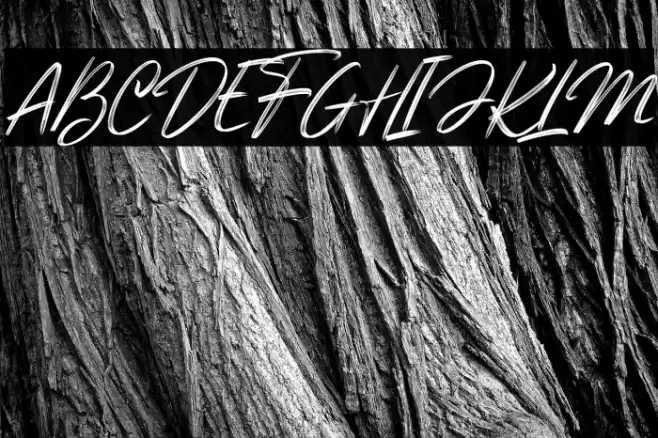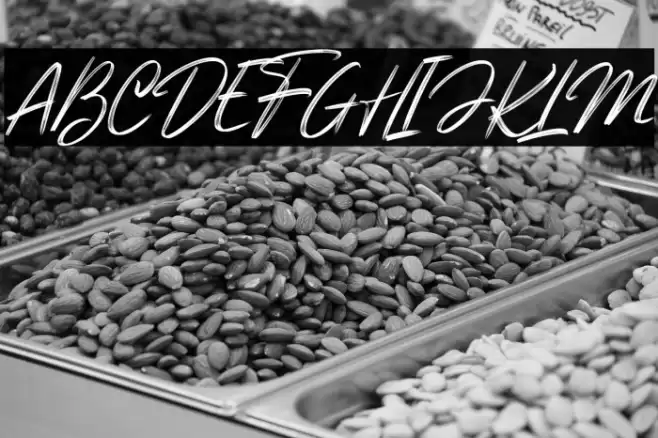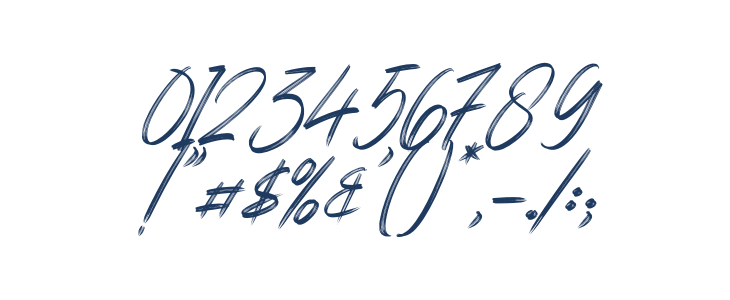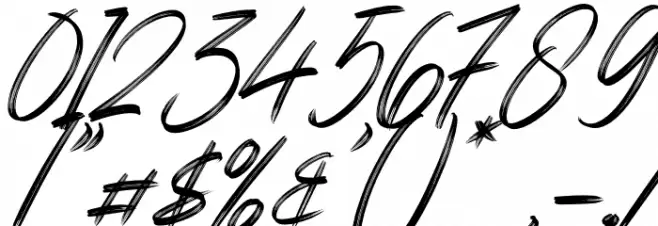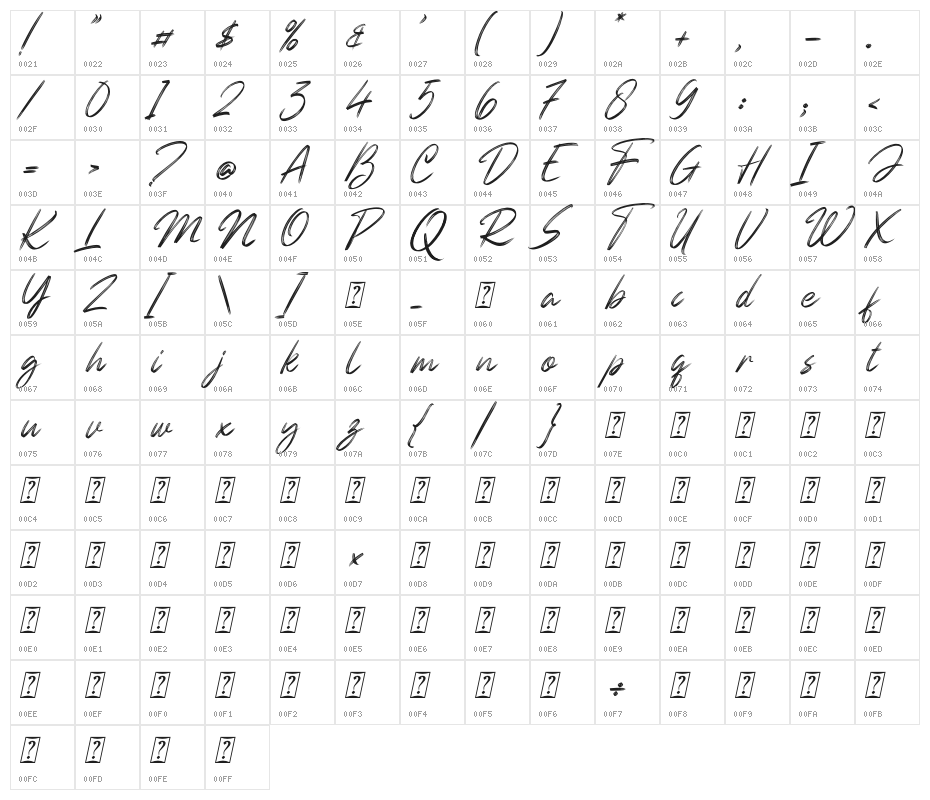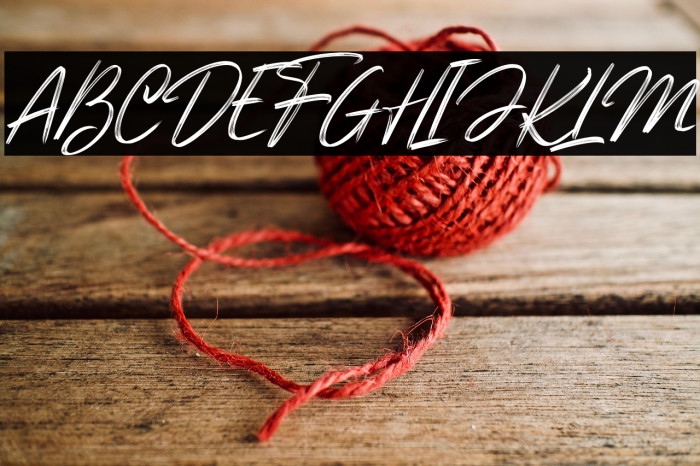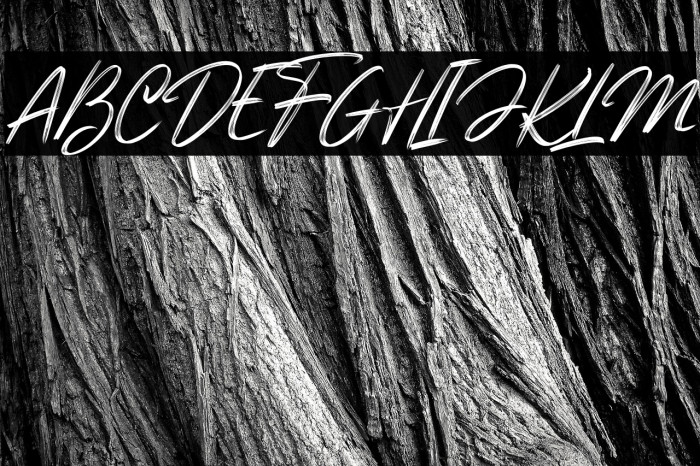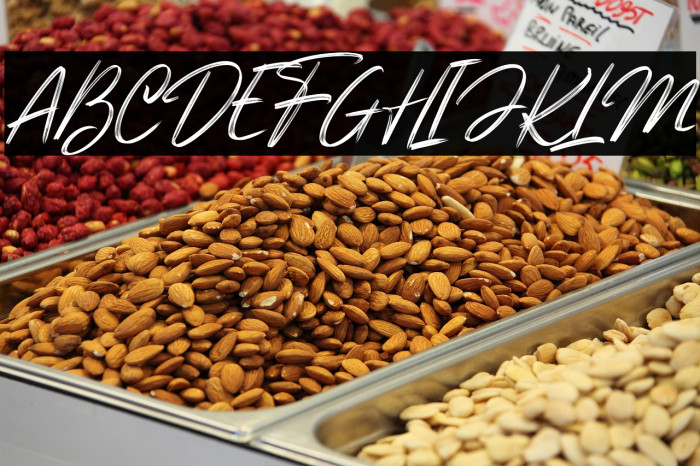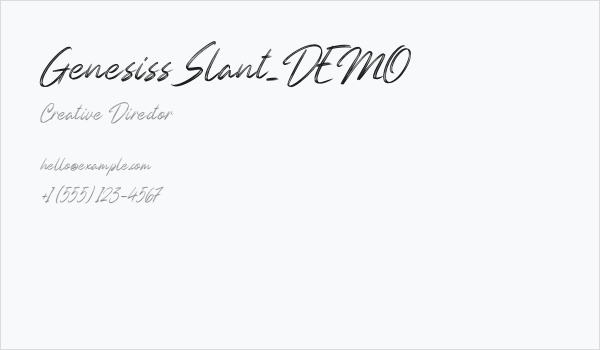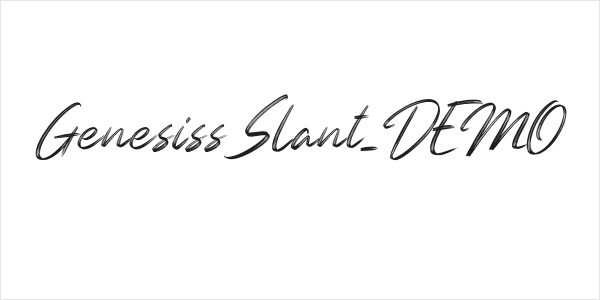
Genesiss Slant_DEMO Font
Genesiss Slant_DEMO Description
This font features a dynamic and expressive style with a pronounced slant, giving it a sense of movement and energy. The characters are crafted with a brush-like appearance, showcasing varying stroke widths that add a hand-drawn feel. The uppercase letters are bold and prominent, while the lowercase letters maintain a consistent flow, enhancing readability. Numbers and special characters are designed to match the overall aesthetic, making them suitable for creative and artistic projects. The font's unique style is ideal for making a statement in any design.
A dynamic, brush-style font with a pronounced slant and expressive strokes from Uncategorized fonts.
- Proposed Projects: Ideal for branding, posters, invitations, and any project requiring a bold, artistic touch.